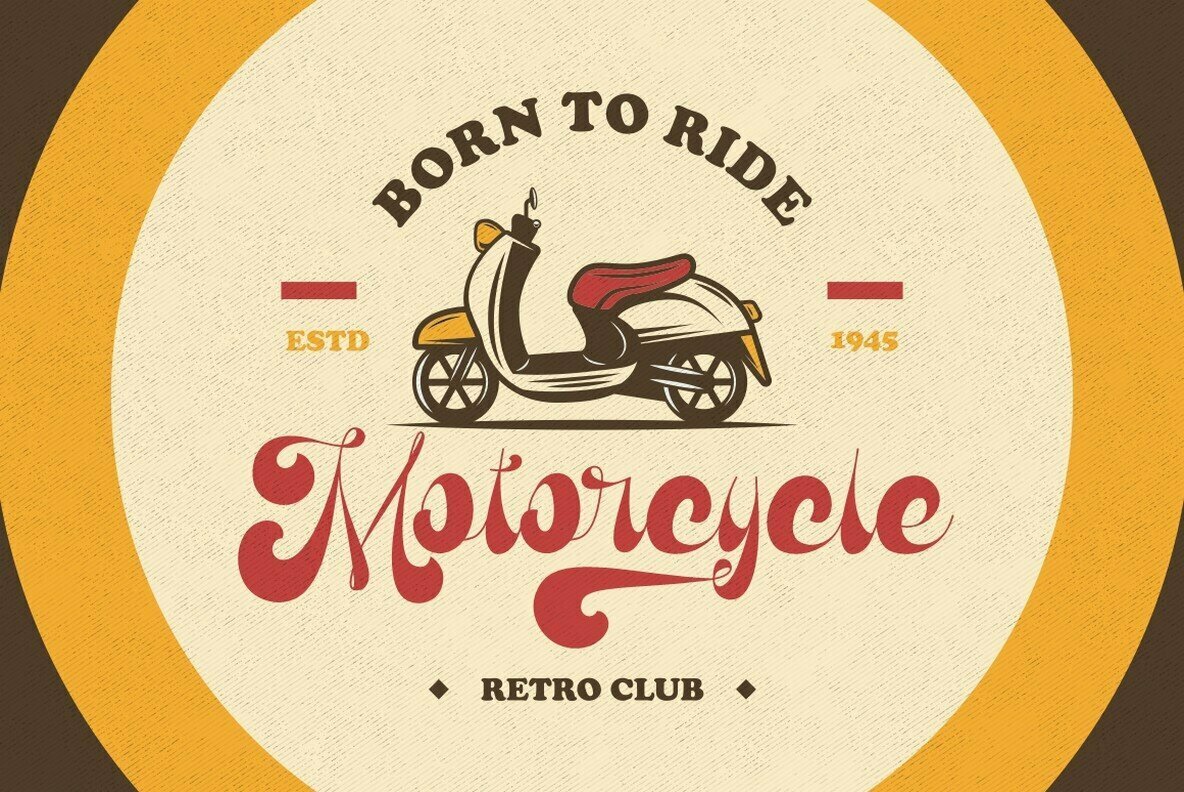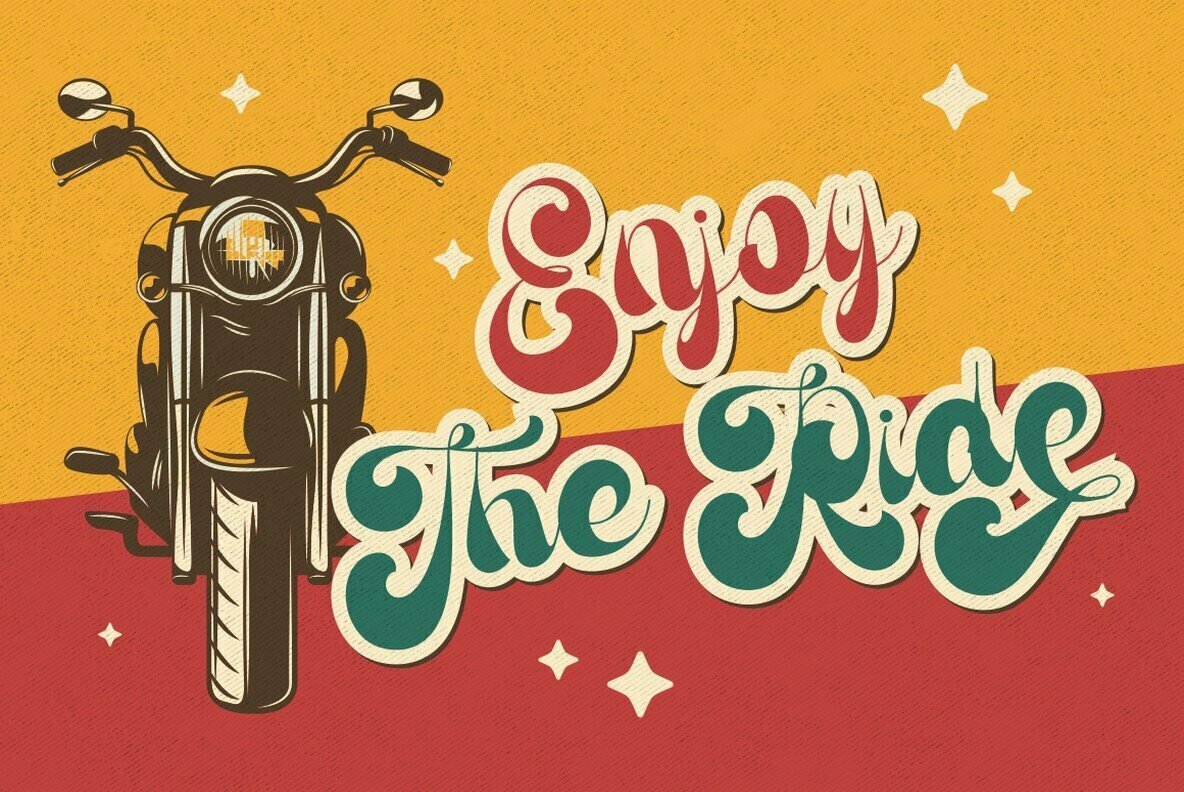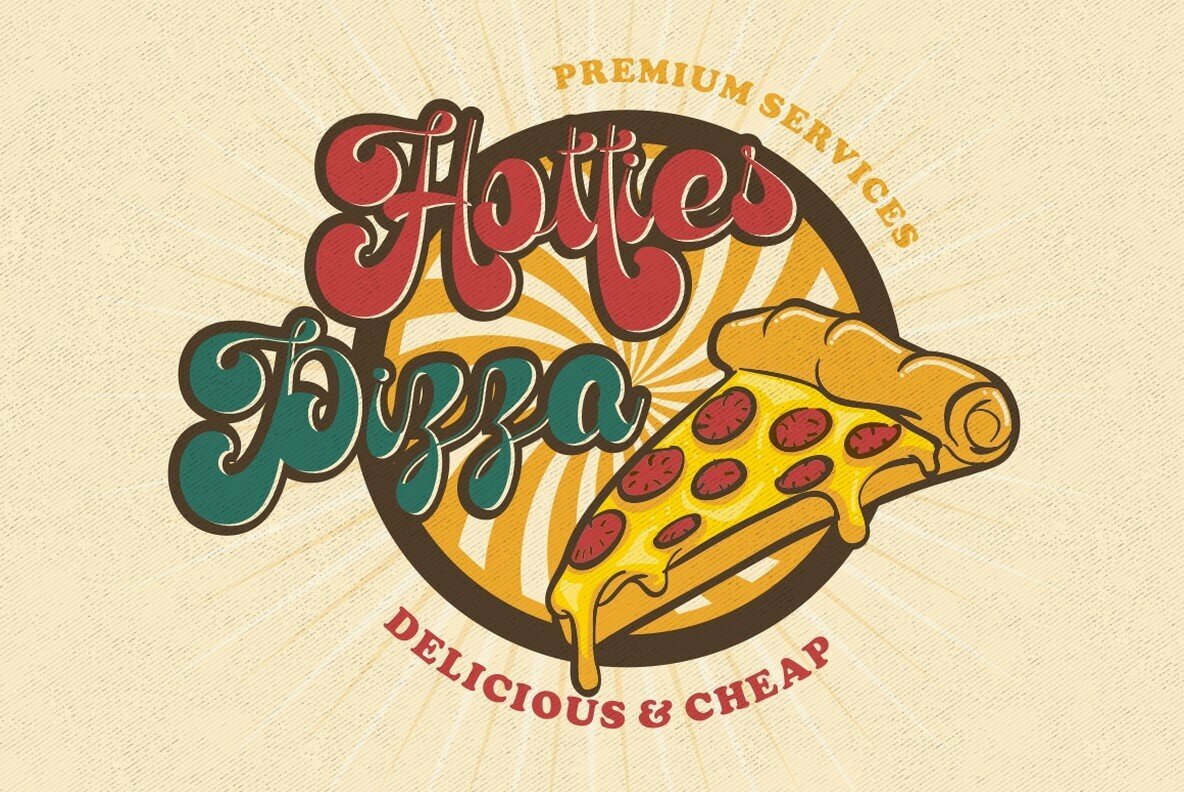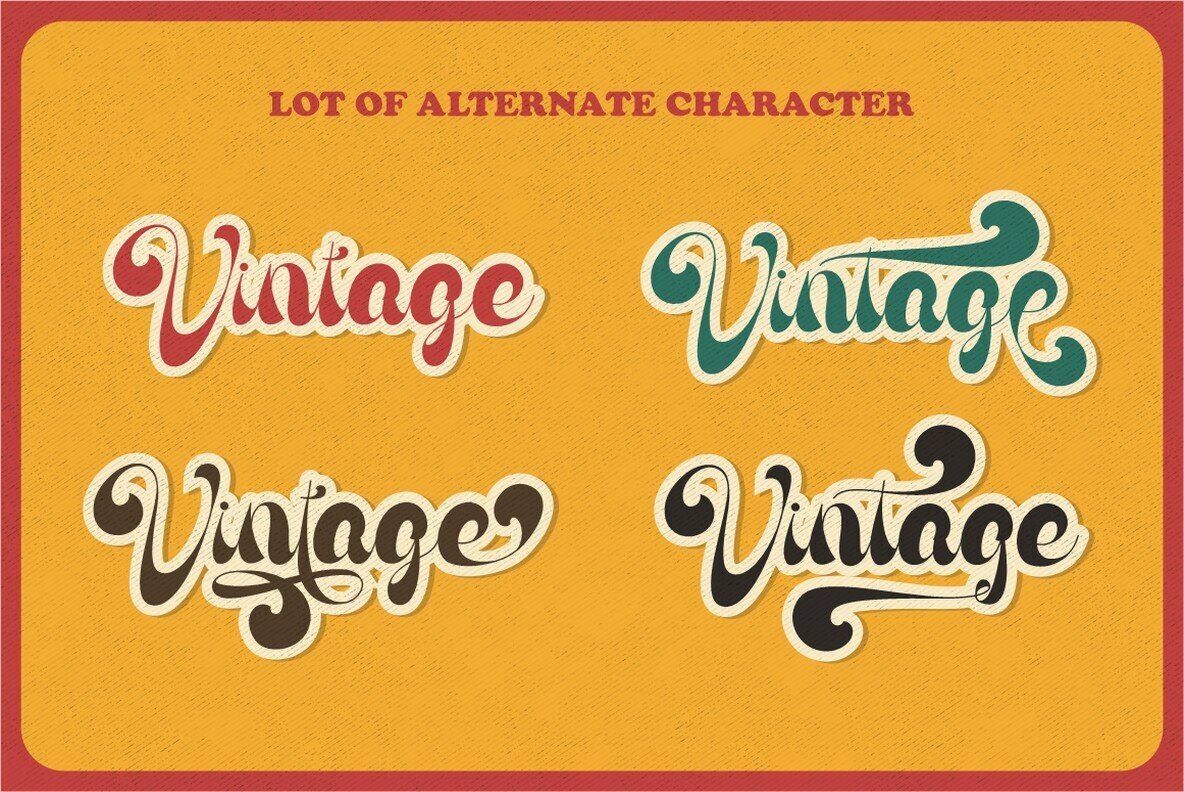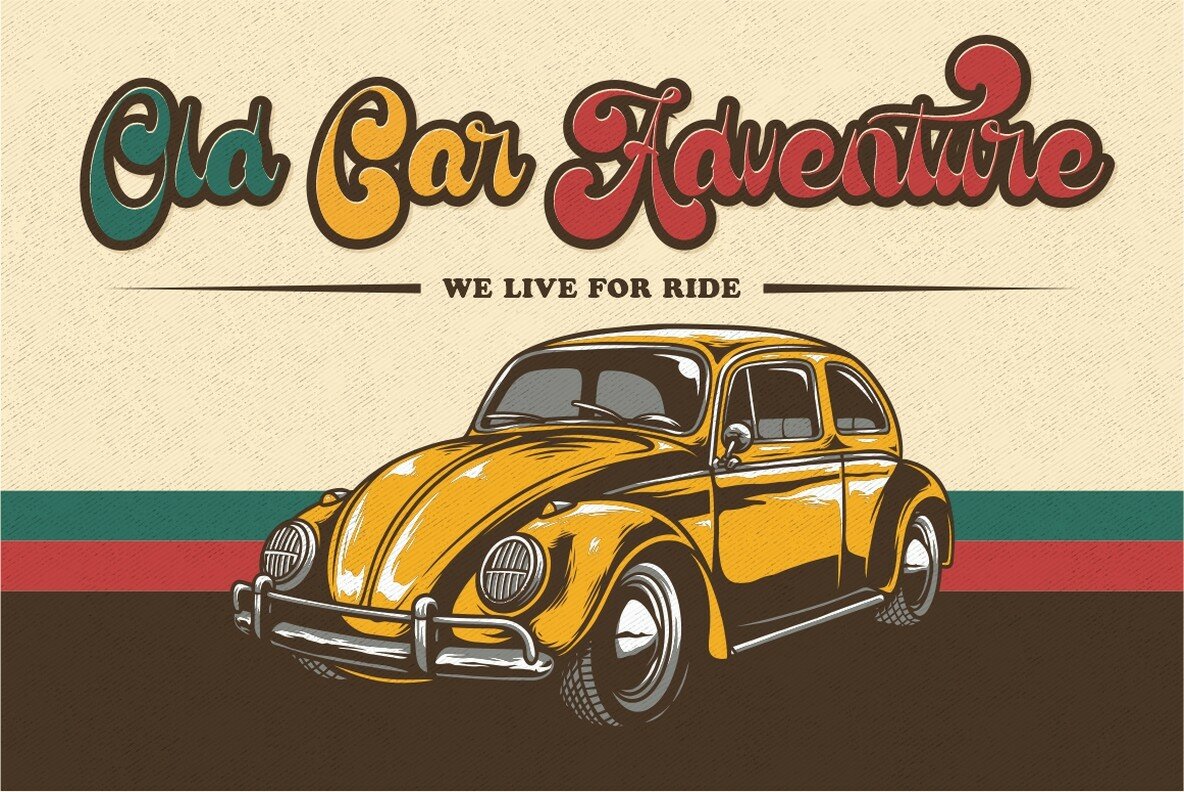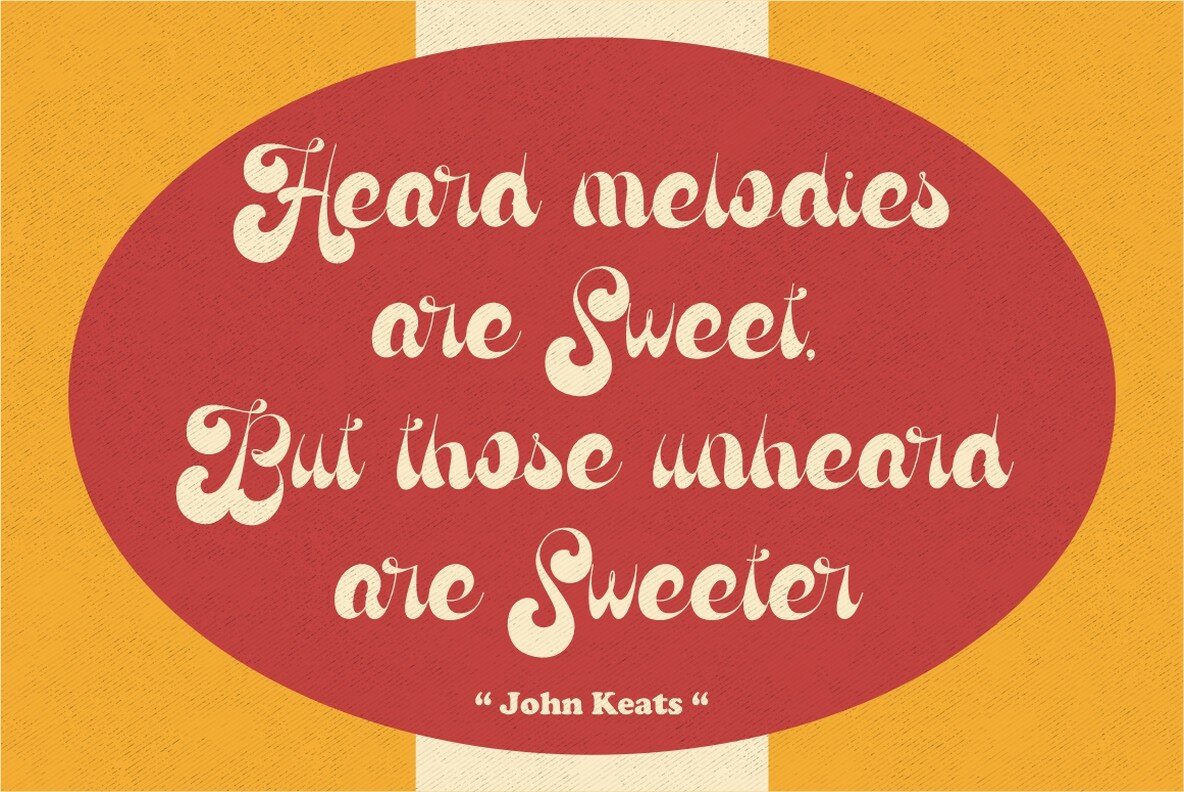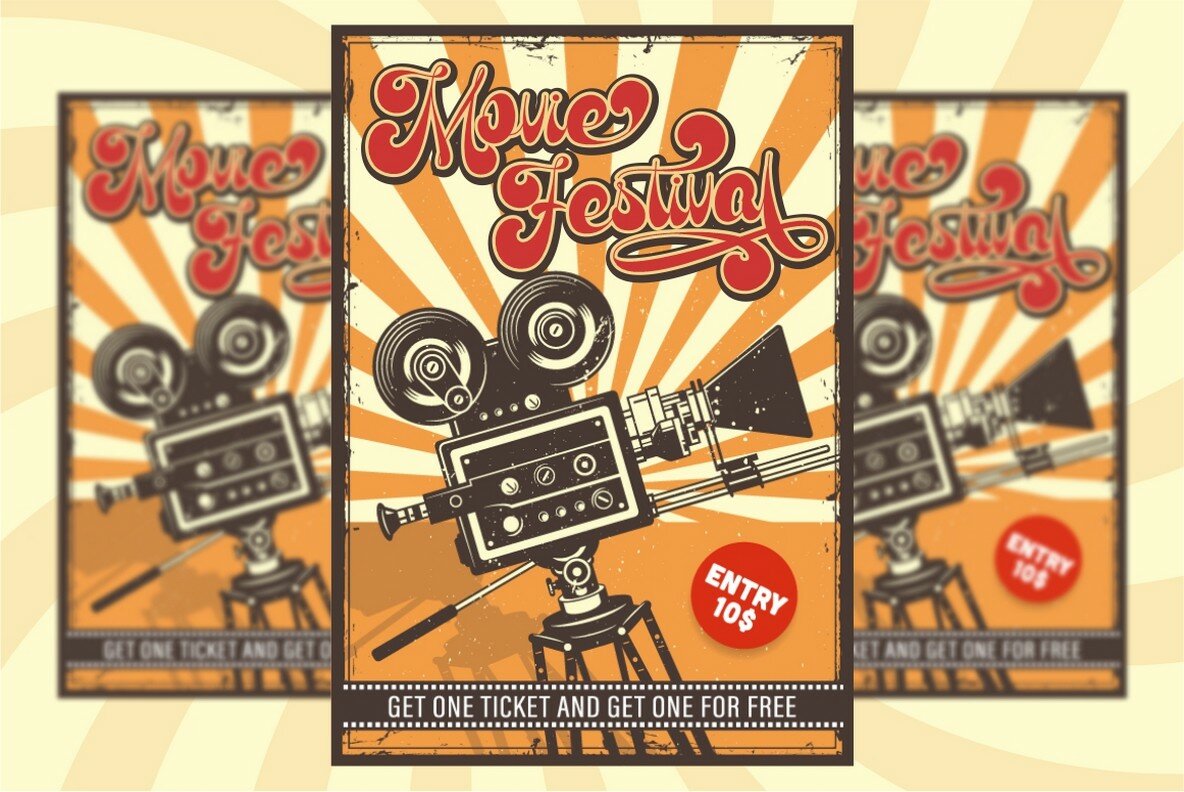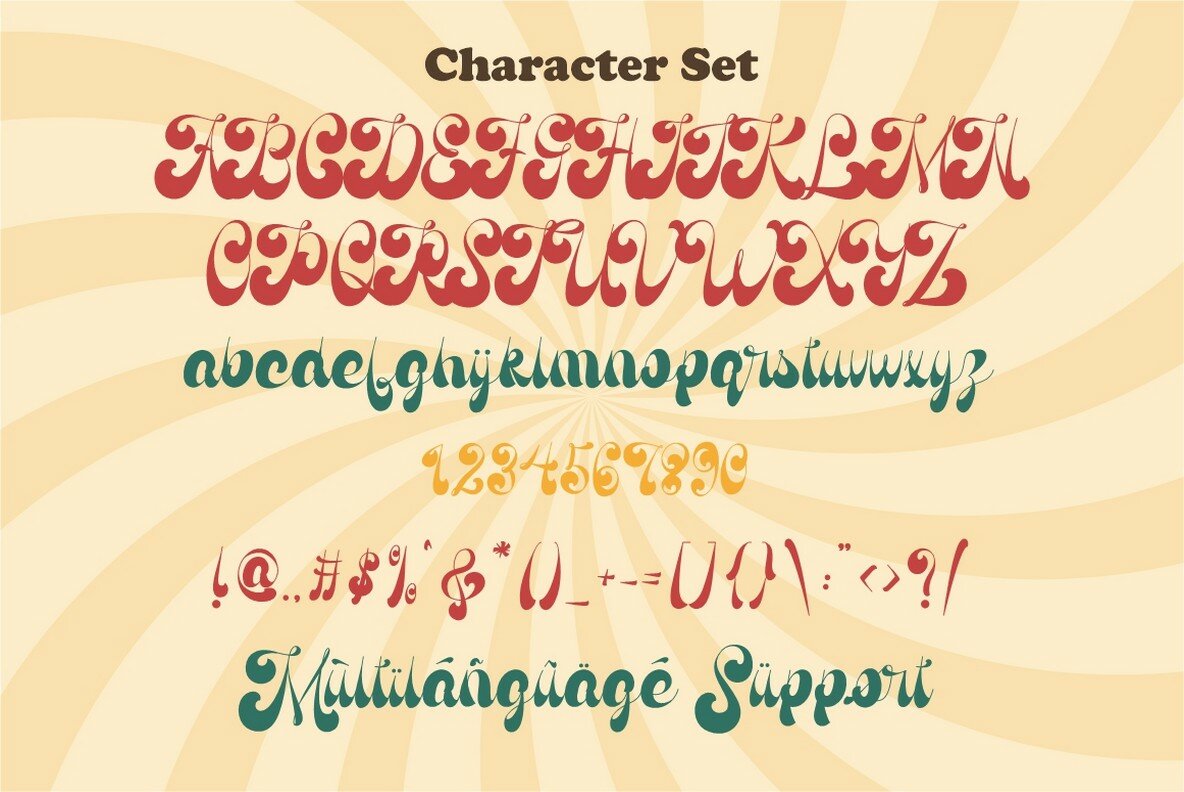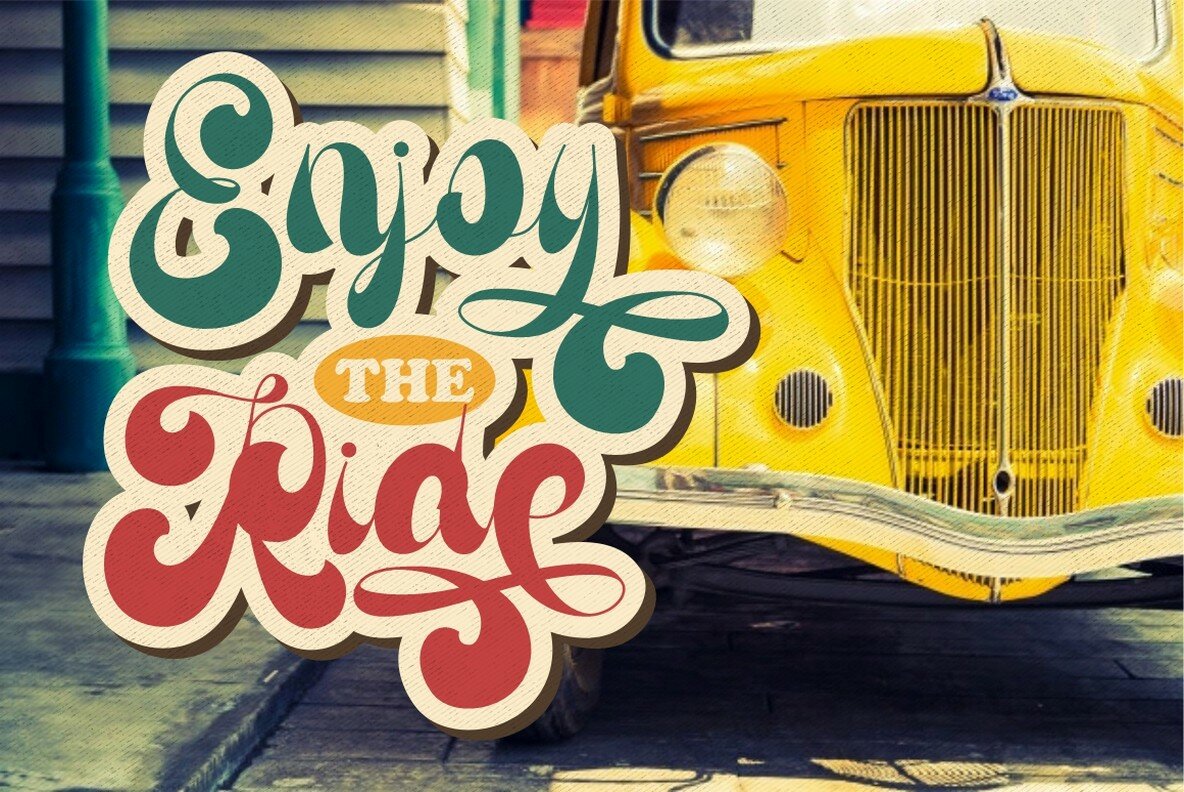
Antique Vignette Font
Antique Vignette
Antique Vignette stands out with an intriguing blend of vintage aesthetics and bold script styling. Its notable variation in thickness imbues the font with a unique charm, lending a nostalgic nod to classic design. Ideal for vintage, retro, or groovy-themed projects, this font is a versatile addition to any designer's toolkit. Perfect for logos, branding, lettering, badges, emblems, quotes, posters, book titles, packaging, and apparel, Antique Vignette offers a myriad of design possibilities. Leverage OpenType features through applications like Adobe Illustrator, Photoshop, and Indesign for greater creative expression. Please note, extrude and shadow effects showcased in previews are not included.Antique Vignette: Quirky Vintage Script Font